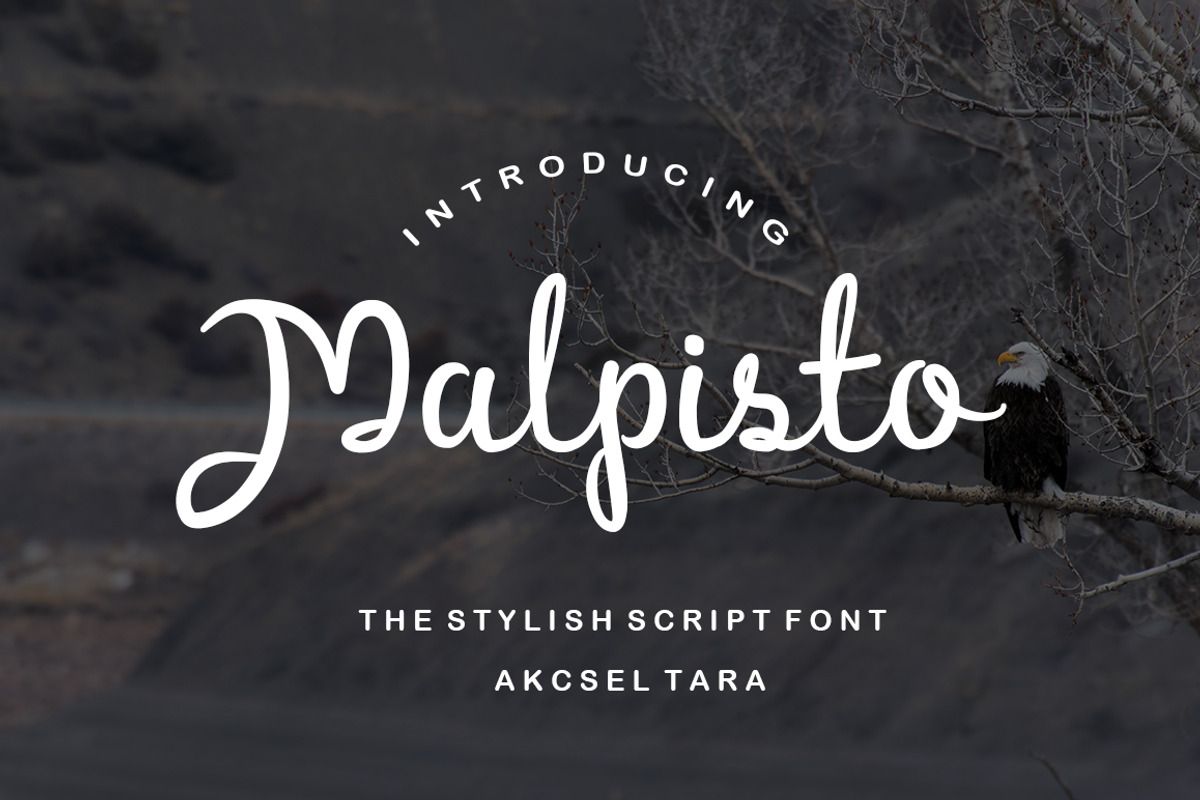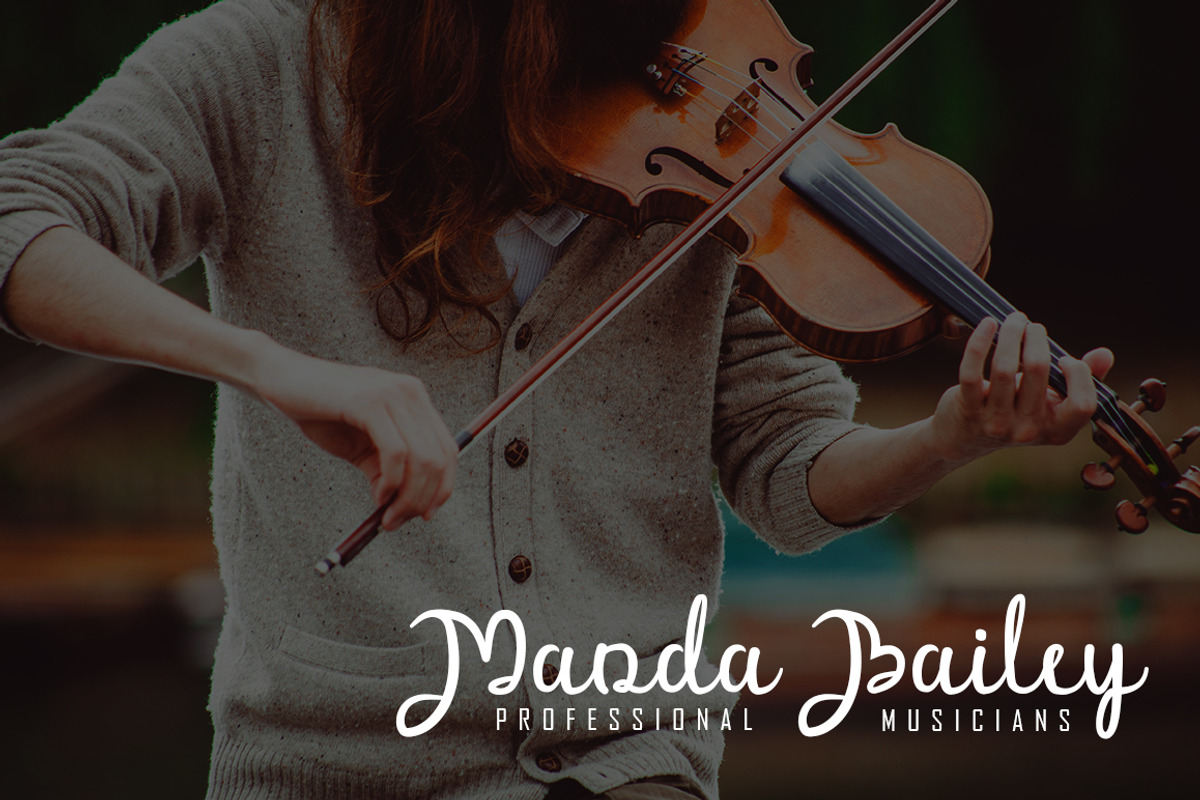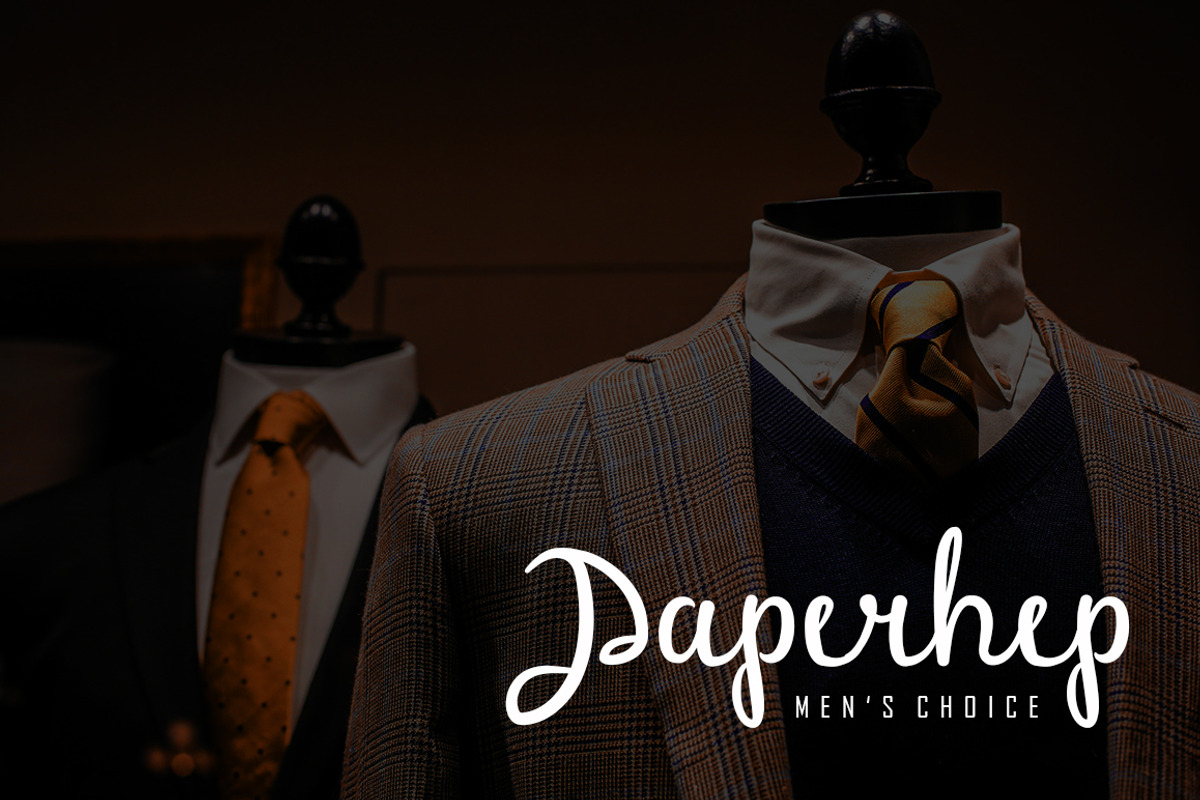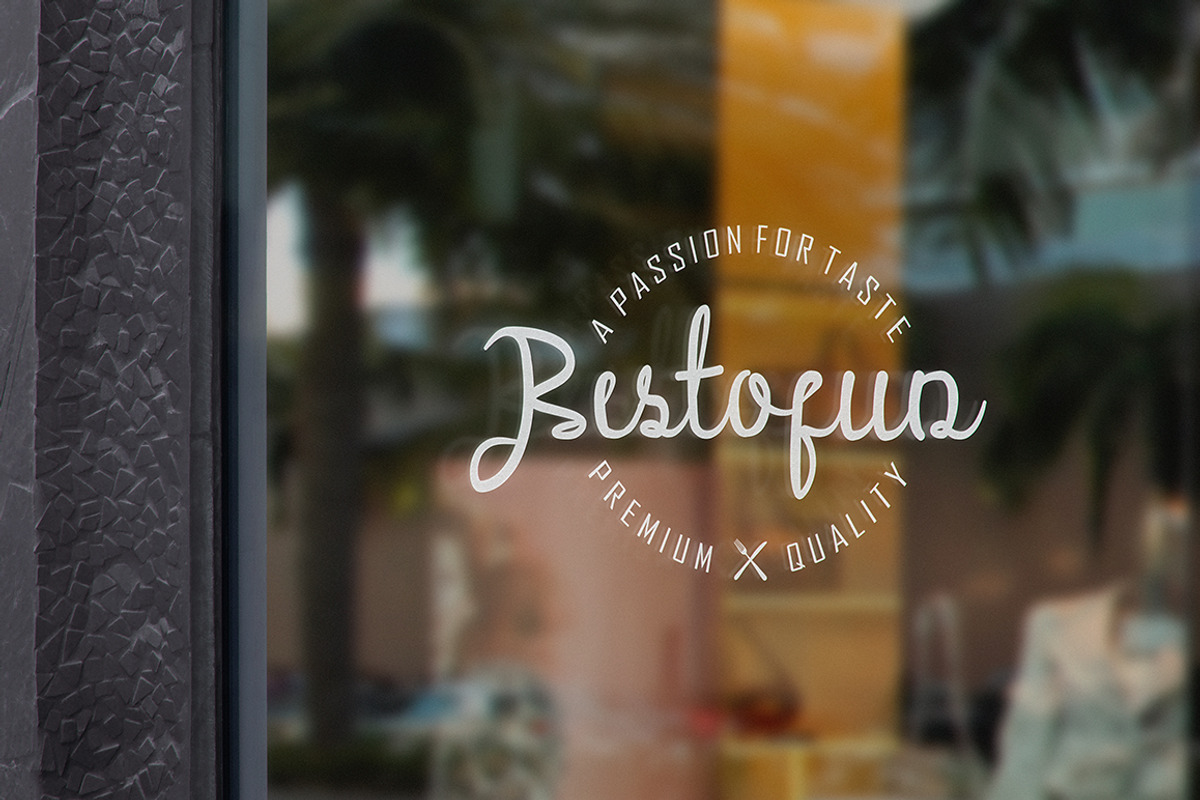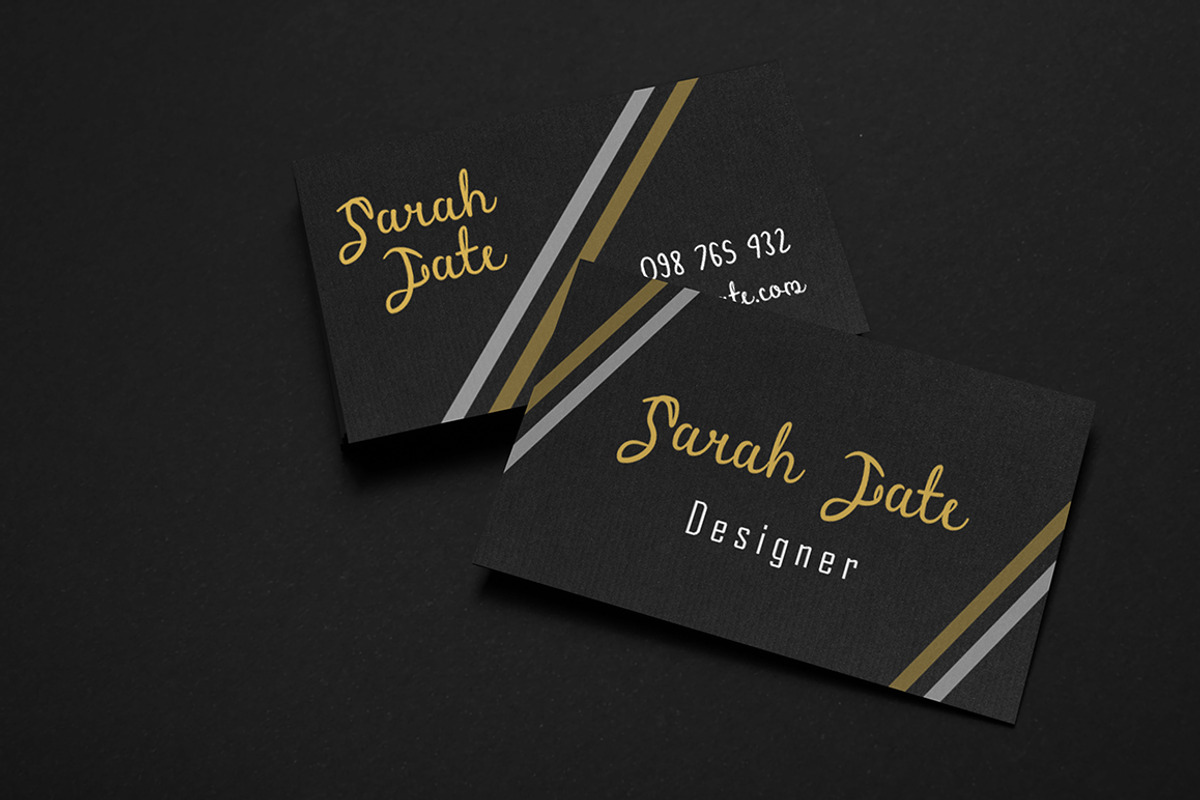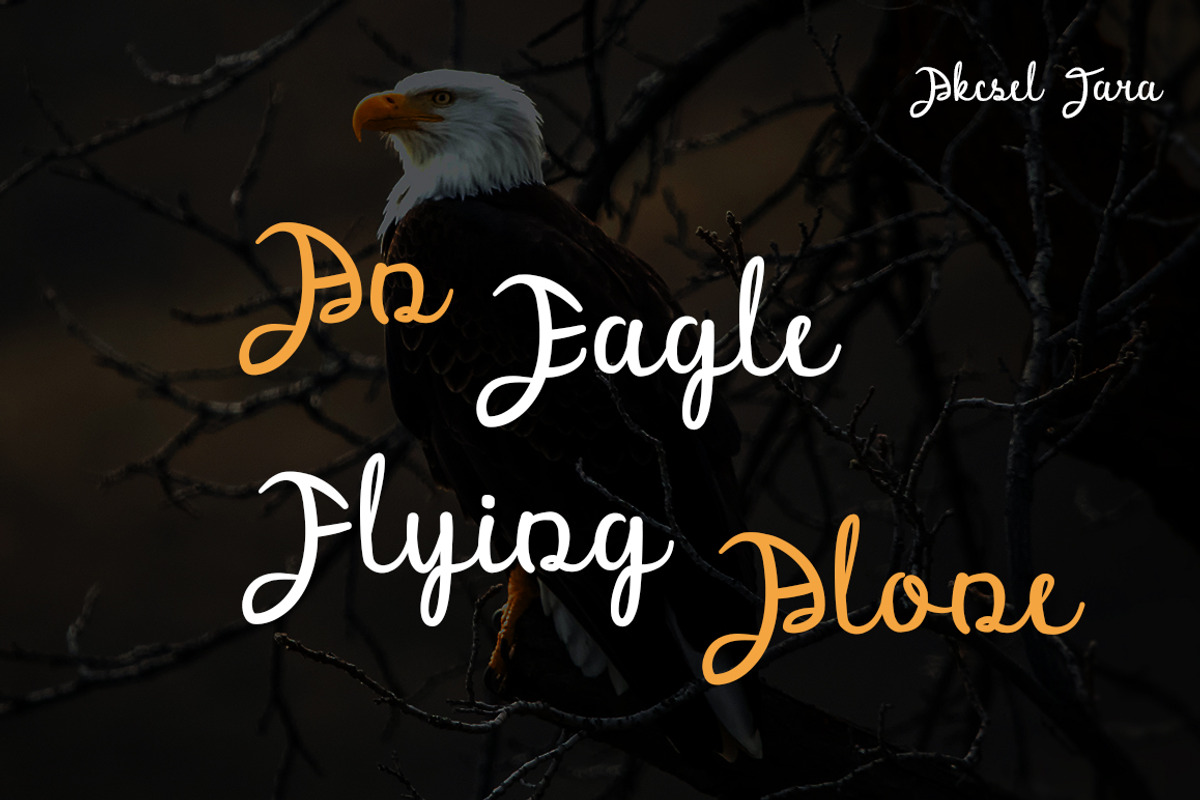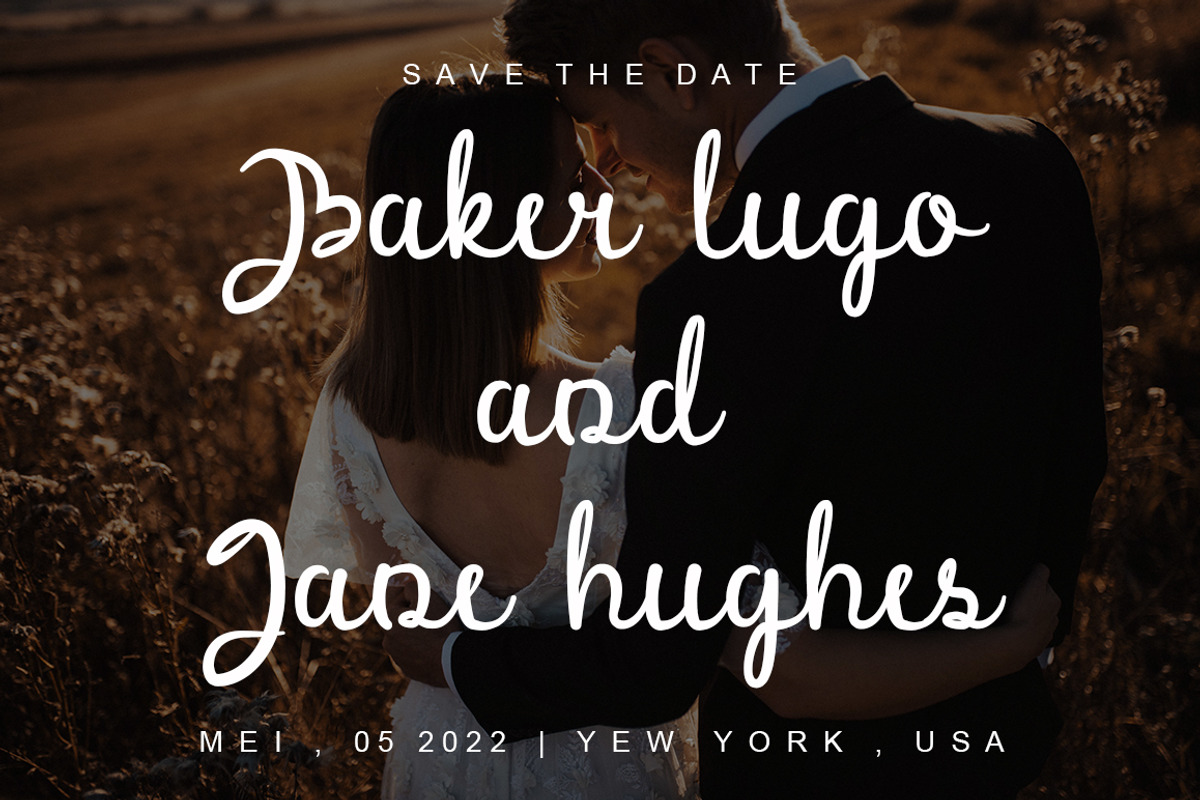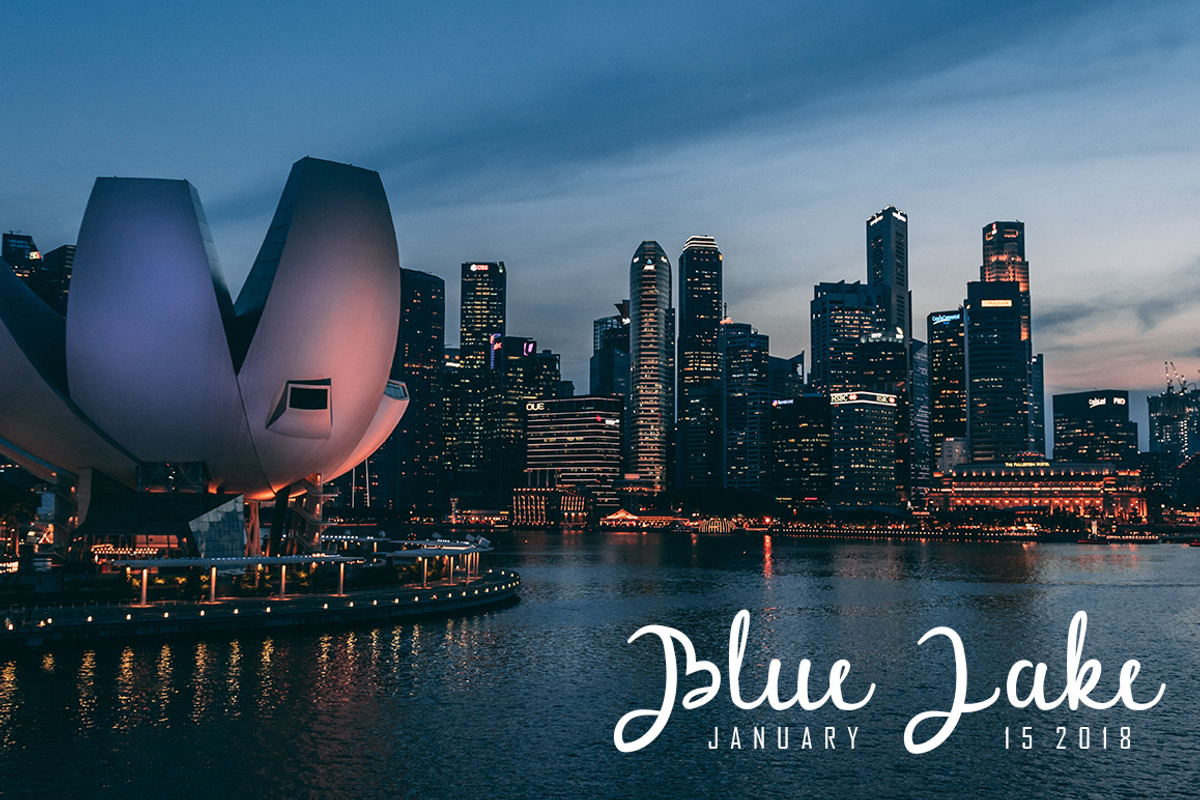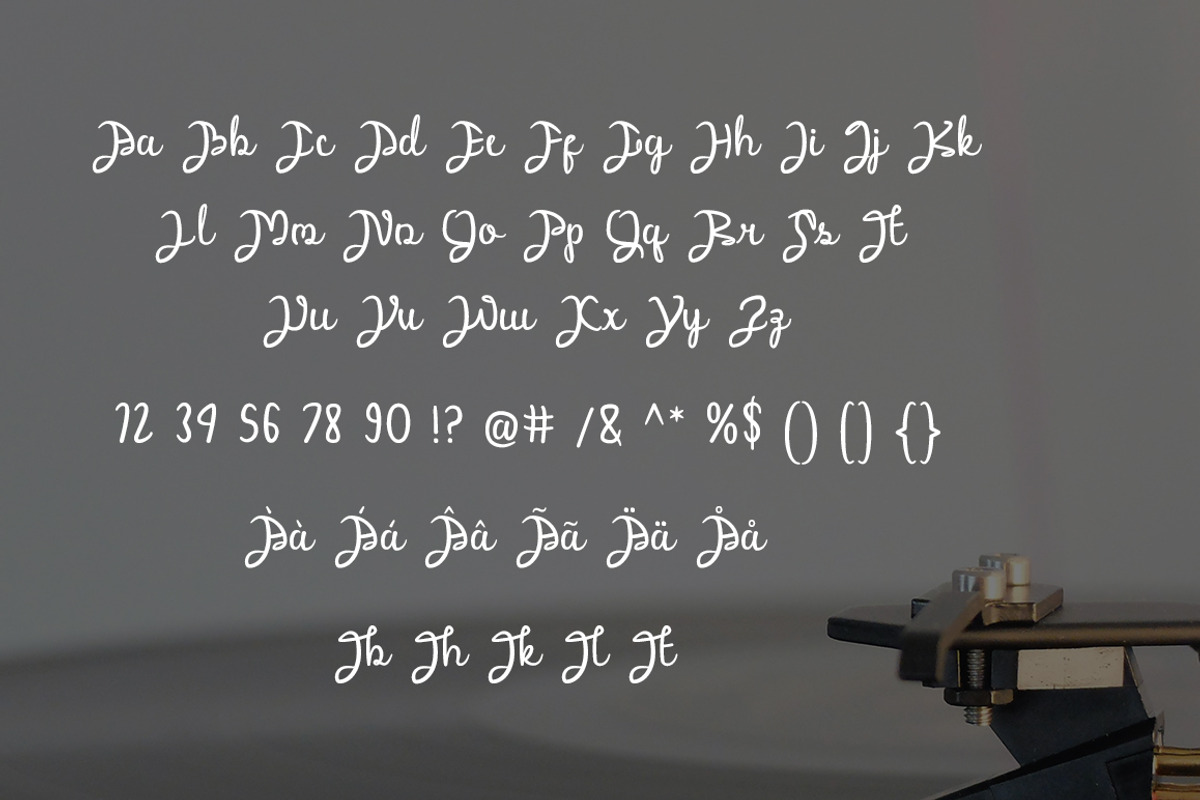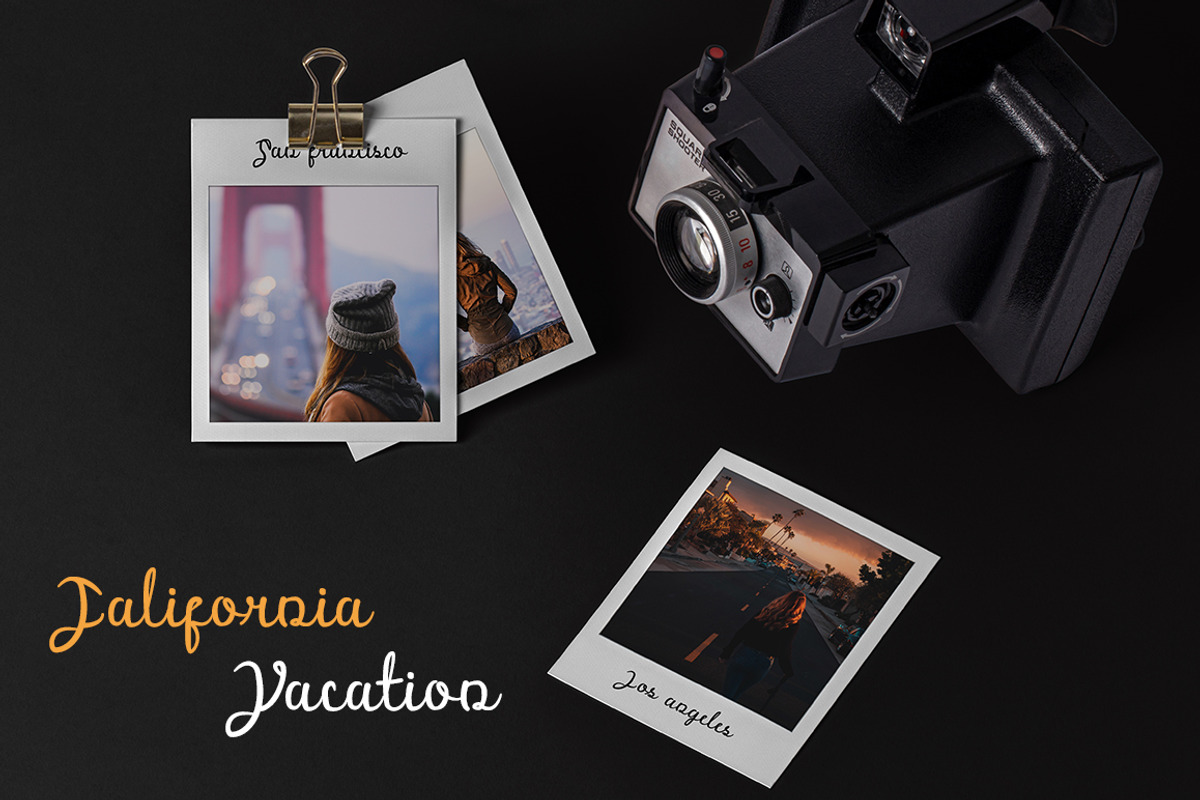
Malpisto - Stylish Script Font
Malpisto! a stylish script font with elegant lines and the right combination of letters.
Malpisto is perfect for logos, greeting card, wedding card, name card, book titles, brand identity, packaging, any project, and much more.
Malpisto includes all upper and lower case standard character, punctuation, numerals and ligatures.